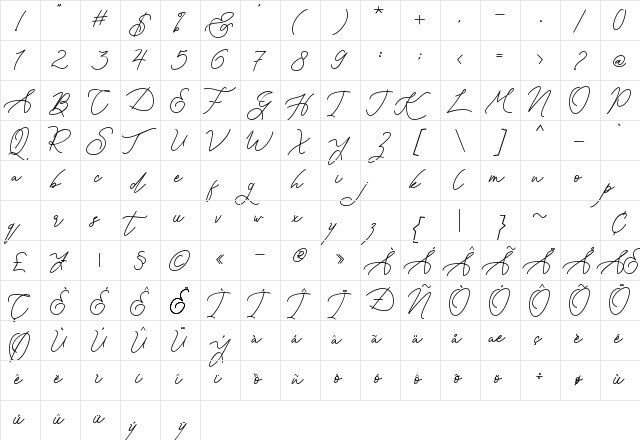
Kanaggawa Regular
| Designer | Letterara 2019 |
Design Context for Kanaggawa Typeface
Kanaggawa is a composed and adaptable typeface that performs quietly and consistently across a wide range of design contexts.